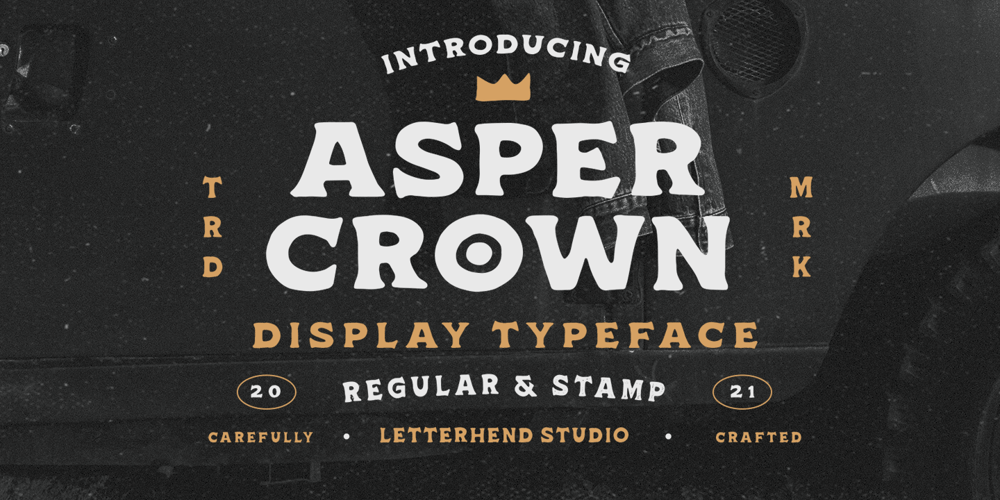
Asper Crown Font Family was designed by Hendry Juanda and published by Letterhend. Asper Crown contains 2 styles and family package options. Asper Crown a strong and bold sans serif with a touch of vintage look and feel. Comes with 38 bonus hand drawn illustration in vector and free 12 premade logo. This type of font perfectly made to be applied especially in logo, headline, signage and the other various formal forms such as invitations, labels, logos, magazines, books, greeting / wedding cards, packaging, fashion, make up, stationery, novels, labels or any type of advertising purpose.Features :Regular & Stamp version38 hand drawn illustration12 premade logouppercase & lowercasenumbers and punctuationmultilingualalternates / swashes and ligaturesPUA encodedWe highly recommend using a program that supports OpenType features and Glyphs panels like many of Adobe apps and Corel Draw, so you can see and access all Glyph variations. How to access opentype feature : letterhend.com/tutorials/using-opentype-feature-in-any-software/Email us to letterhend@gmail.com if you need something! Happy Designing!